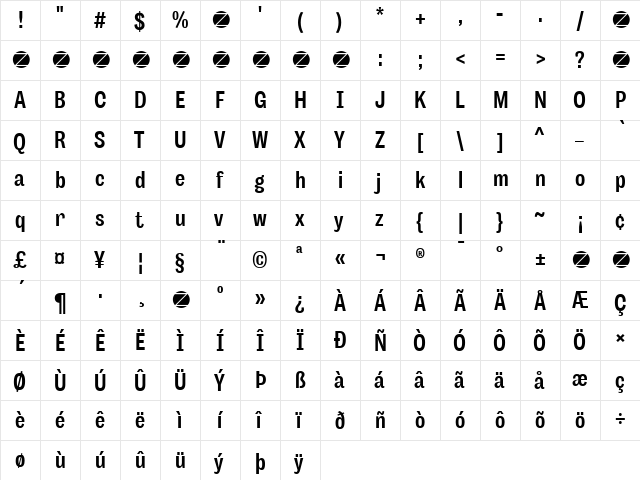
Body Grotesque Slim Bold
| Foundry | Studio Kmzero & Zetafonts |
| Designer | Cosimo Lorenzo Pancini |
Design Context for Body Grotesque Slim Typeface
Body Grotesque Slim takes a measured approach to typography — its balanced proportions and neutral character make it a reliable workhorse for both digital and print work. Its bold stroke weight gives it real presence on the page.